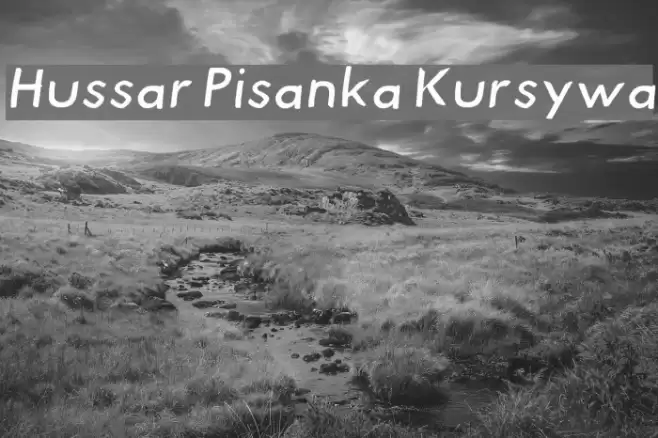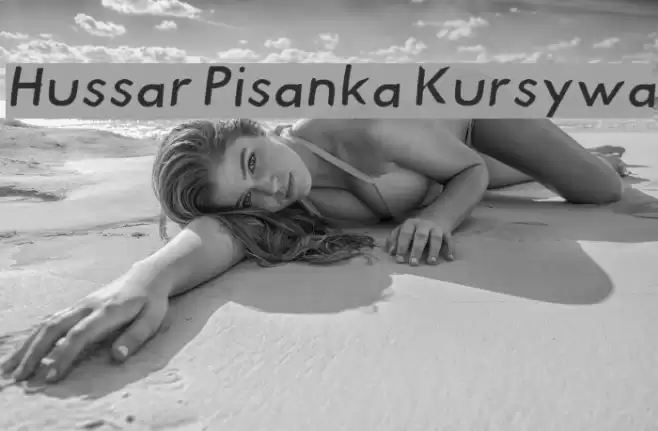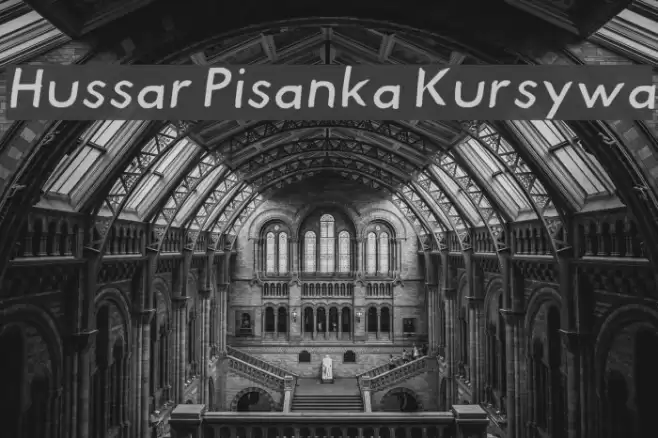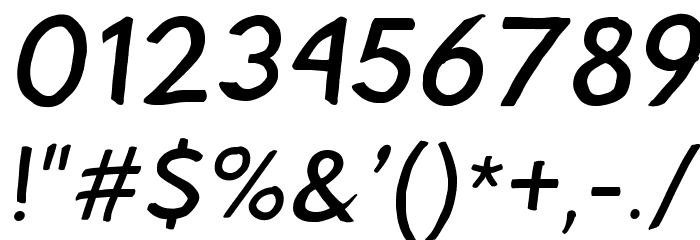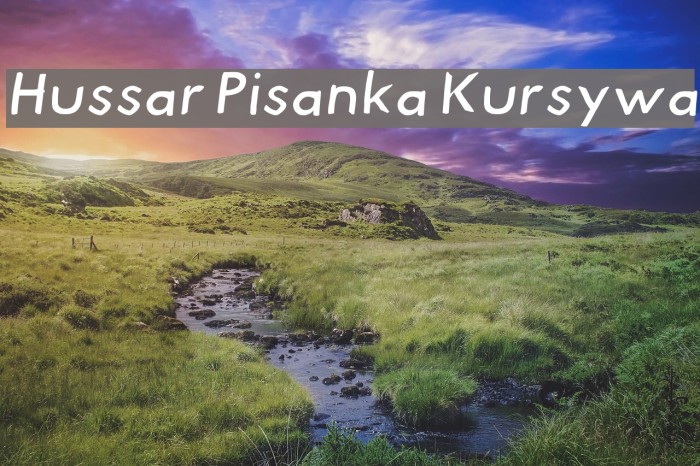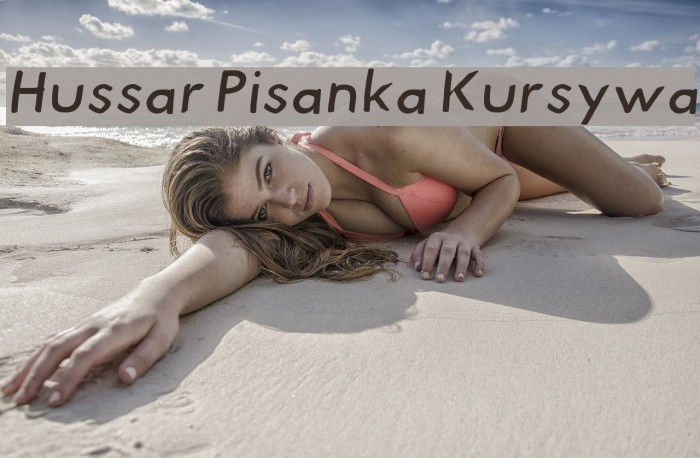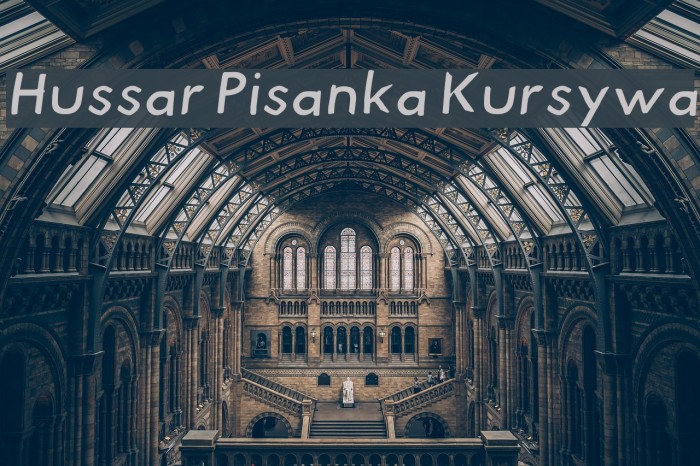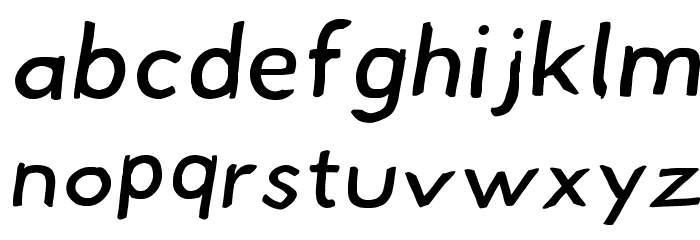
Hussar Pisanka Kursywa Font
Hussar Pisanka Kursywa Description
This font features a playful and dynamic script style with a handwritten feel. The characters are slightly slanted, giving a sense of motion and fluidity. The strokes are smooth and consistent, with rounded edges that add a friendly and approachable quality. The uppercase letters maintain a uniform height, while the lowercase letters have a slight variation in size, enhancing the casual aesthetic. Numbers and special characters are designed to match the overall style, ensuring a cohesive look across all text elements. This font is versatile, suitable for both digital and print media, and can be used to add a personal touch to any project.
A playful, handwritten script font with smooth, rounded strokes from Uncategorized fonts.
- Proposed Projects: Ideal for greeting cards, invitations, personal branding, and creative projects that require a friendly and approachable look.
- Overall Style: Casual, Handwritten
- Use Case: Logos, Invitations, Greeting Cards